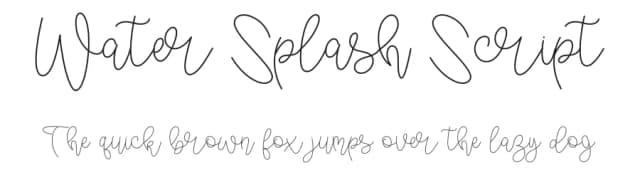
About Water Splash Monoline Font
Water Splash Monoline Specifications
| Font Family | Water Splash Monoline |
| Full Name | Water Splash Monoline |
| Glyph Count | 267 glyphs |
| Designer | Miftahul Arzaq |
Water Splash Monoline Font is a script font that shines as a display or heading face. Pair it with a clean sans-serif or serif font for body text β the contrast creates a clear hierarchy while the two styles stay balanced and easy to read.
Water Splash Monoline Font
by Miftah Arzaq